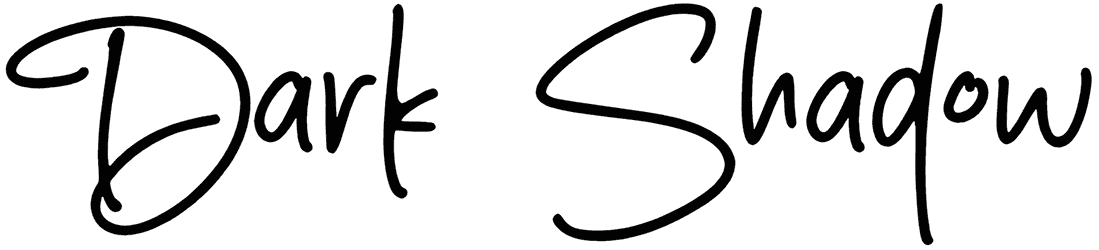
Dark Shadow Font
Dark Shadow font has the casual looseness of quick handwritten notes, but with enough personality to keep a headline from feeling plain. The strokes look natural, slightly imperfect, and relaxed in a way that makes a design feel human instead of overly polished.
Use Dark Shadow for café menus, quote cards, handmade product tags, casual logos, notebook covers, social media posts, packaging stickers, or friendly event posters. This handwritten font works best when you want the text to sound approachable, like someone wrote it with confidence and didn’t overthink every curve.